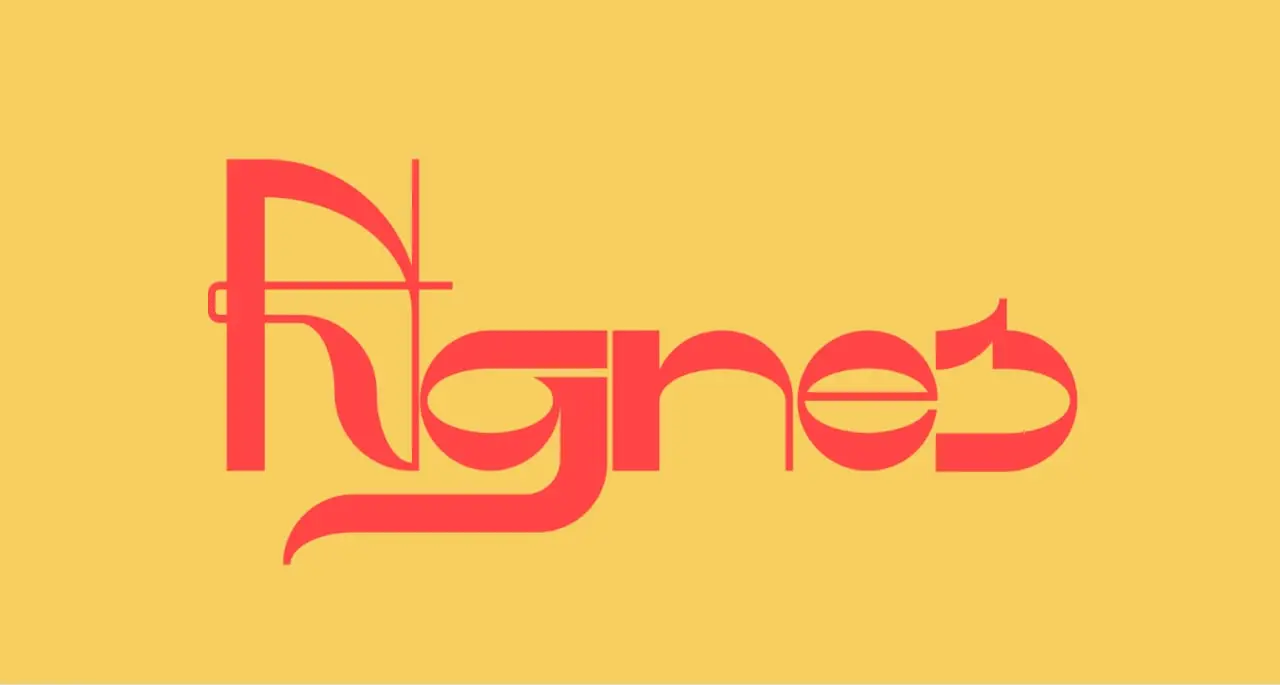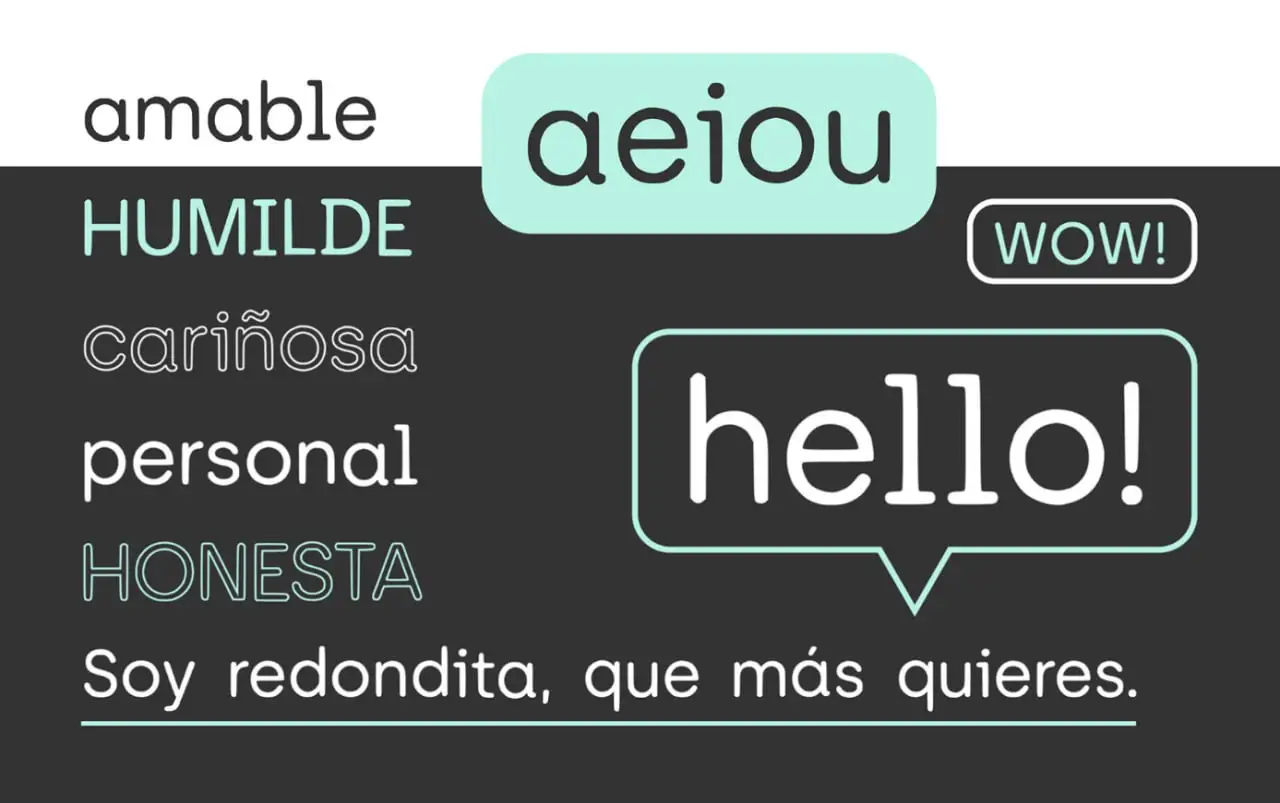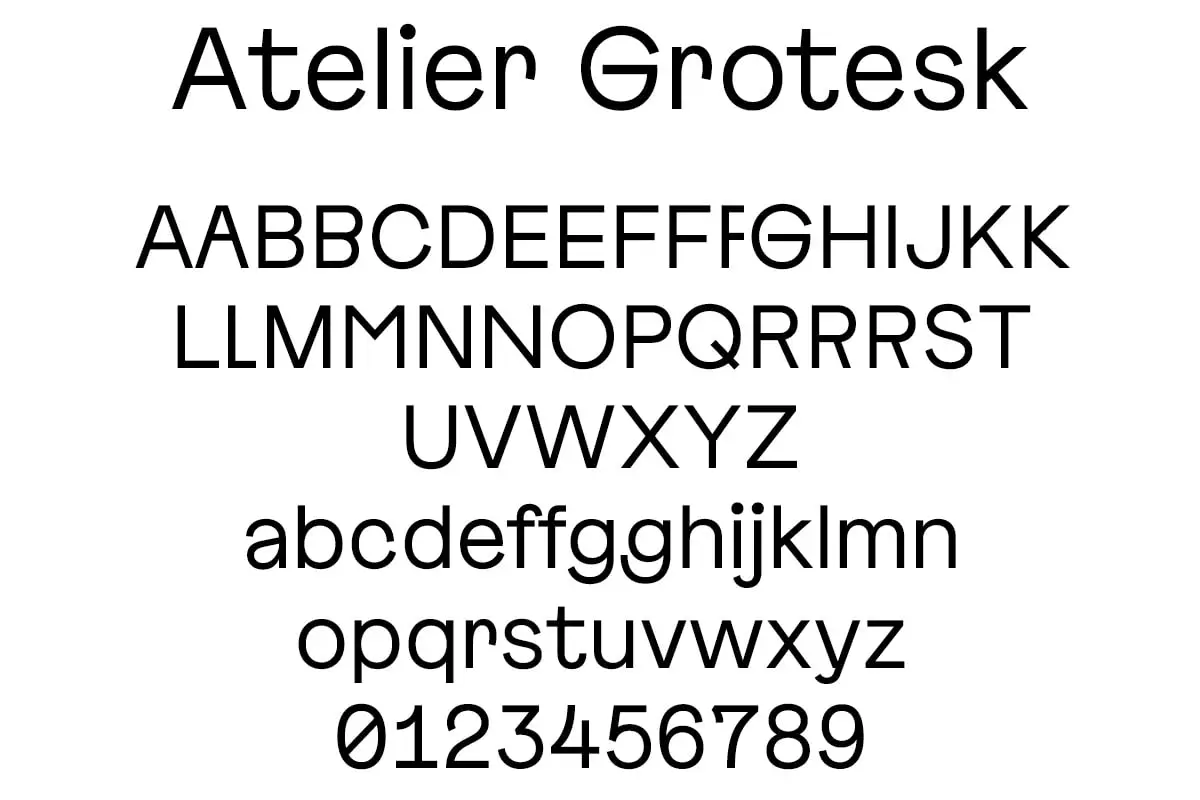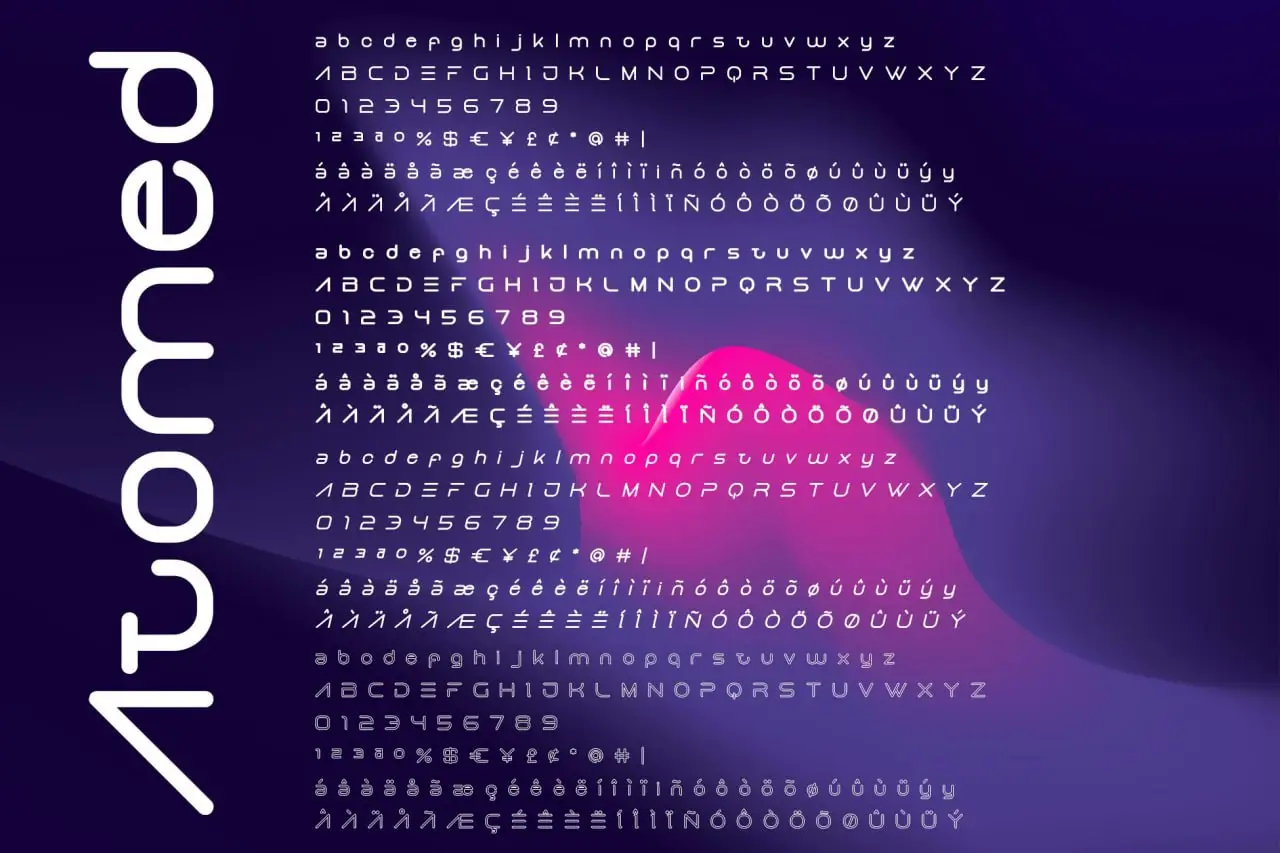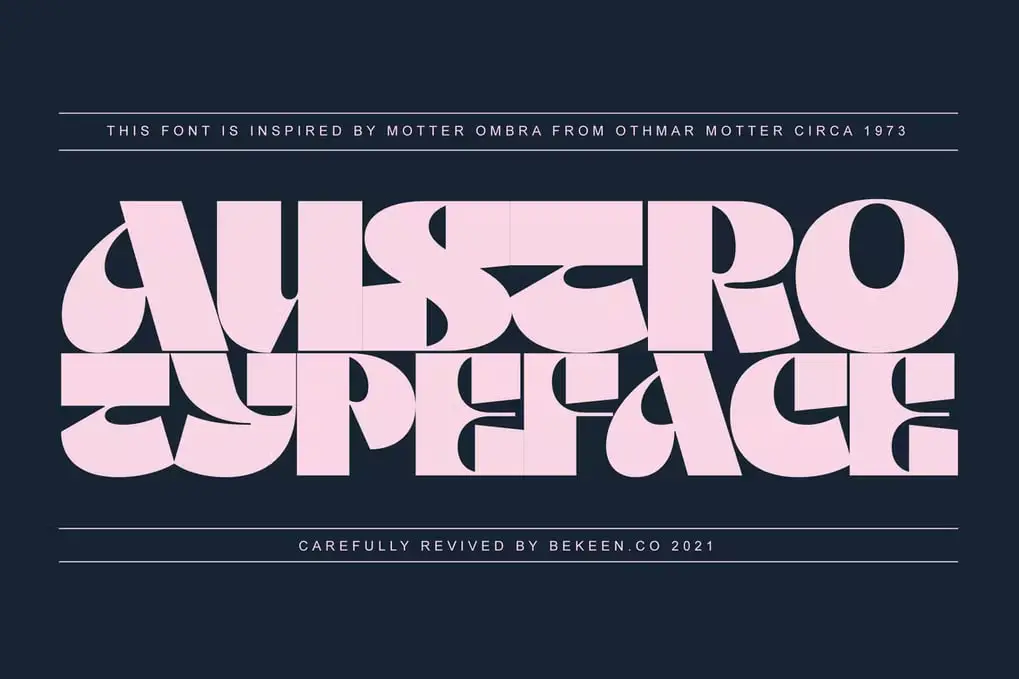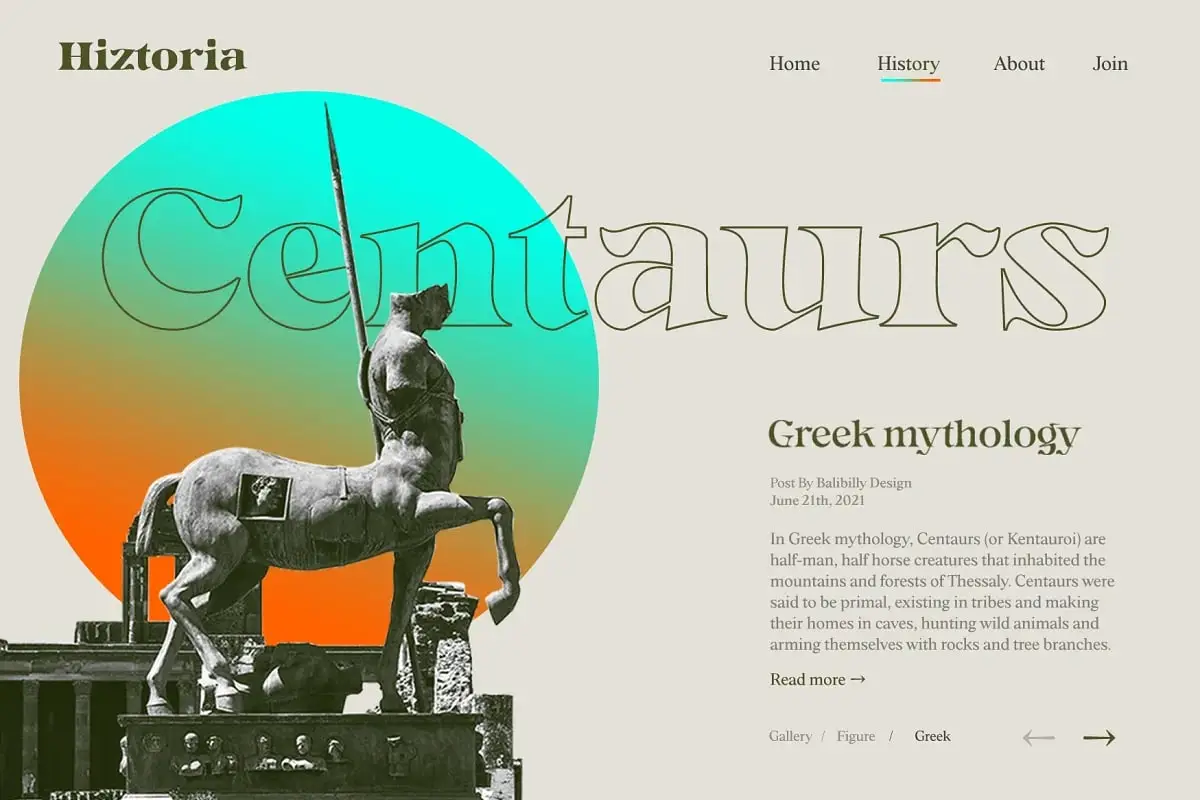
Atelier Grotesk Font
This beauty is the ultimate modern sans-serif for clean branding. ✨ It’s versatile, legible, and comes in multiple weights – perfect for everything from sleek UIs to elegant print layouts.
Aubrey Pro
More than just a font, this is a full digital design asset. 🎨 It comes with high-resolution, customizable elements that are super easy to drop right into your favorite software.
Balibilly Design-Gegor Serif Display Font
If you want your headlines to command attention, this is it. 🖋️ The Gegor Serif is beautifully crafted with a unique style that screams elegance and class. Perfect for luxury branding!
Barongs Font
This typeface is the perfect blend of modern and traditional charm. 🎭 It’s stylish, versatile, and includes multiple weights, making it a great all-rounder for any creative project.
Agnes-A Display Font
Stunning and stylish curves define this display font. 🌟 It’s designed to capture attention instantly, making it a fantastic choice for logos and promotional materials.
Austro Typeface
Clean, geometric, and oh-so-contemporary. 🔲 The Austro Typeface is a full family that handles branding, web design, and print with equal finesse. A true workhorse!
Amababy By Dani Ayelo
Inject some playful originality into your work! 🧸 This digital asset is perfect for illustrators and designers looking for high-quality, easy-to-use elements that add a unique touch.
Ash Font
Simple, elegant, and incredibly versatile. 🩶 With clean lines and unique character shapes, the Ash Font is like a little black dress for your design projects—it just works everywhere.
Aztrobuiya Font
Need something with a little cosmic elegance? 🌌 This font blends modern design with a touch of magic, offering Light, Regular, and Bold weights in multiple formats like OTF and WOFF.
Atomed By Jada Akbal
Modern aesthetics meet total versatility. ⚛️ This asset is packed with high-quality designs and a variety of styles that are super easy to customize for your personal projects.
Athlone Vintage Serif
Classic elegance with a modern twist. 🏛️ This beautifully crafted serif is perfect for editorial layouts and branding that needs a touch of old-world class with contemporary flair.
10 Best Alternatives To Popular Fonts
Break the mold and stand out! 🎭 This curated collection gives you 10 unique alternatives to the usual suspects, covering serif, sans-serif, script, and display styles.
The Amazing Fonts Bundle
It’s in the name! 🤩 This bundle is truly amazing, offering a diverse range of serif, sans-serif, script, and display fonts to cover all your creative needs.
The Font Bundle
Your new go-to type library. 🗂️ This is a carefully curated collection featuring Serif, Sans Serif, Script, and Display styles, ensuring you have the perfect typeface for every project.
Handlettered Font Bundle – 46 Premium Fonts
46 unique handcrafted fonts! ✍️ From elegant scripts to bold display fonts, this bundle brings that authentic hand-drawn feel to any design.
Special Calligraphy Bundle – 22 Premium Fonts
Add a personal, artistic touch to your projects. 🌸 With 22 premium calligraphy fonts, this bundle is perfect for invitations, wedding designs, and elegant logos.
Super Collection Font Bundle – 258 Premium Font
This is the ultimate treasure chest! 💎 258 premium fonts in one bundle. You get everything from elegant serifs to modern sans-serifs. You’ll never run out of options.
Script In Beauty Bundle – 35 Premium Fonts
Elegance overload! 🤍 Featuring 35 unique script fonts with a variety of weights, this bundle brings sophistication and charm to every design.
Special Bundle Fonts Collection [45+ Fonts 26 Typefaces]
This collection is a powerhouse of variety. 🚀 With 45+ fonts across 26 diverse typefaces, you’ll have the perfect tool for any project, from elegant serif to modern sans-serif.
Summer Bundle – 6 Premium Fonts
Catch that sunny vibe! ☀️ This compact but mighty bundle includes 6 premium fonts featuring script, sans-serif, and display styles. Perfect for summer campaigns.
What types of fonts are included in the brushespack bundles?
The bundles are incredibly diverse, featuring everything from elegant serifs and hand-painted scripts to modern sans-serifs and bold display fonts. There is something for every design style and application. 🎨